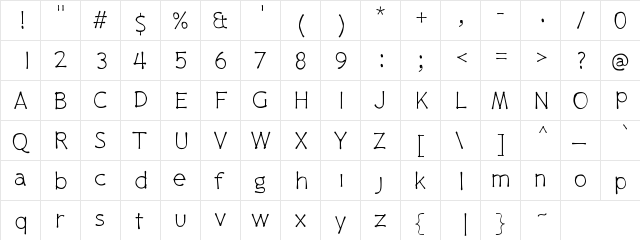
PajamaPantsLight Light
Design Context for PajamaPantsLight Typeface
PajamaPantsLight offers clean, dependable letterforms without strong stylistic allegiance, making it a practical choice for designers who need flexibility. Its slender proportions lend an understated elegance to any composition.